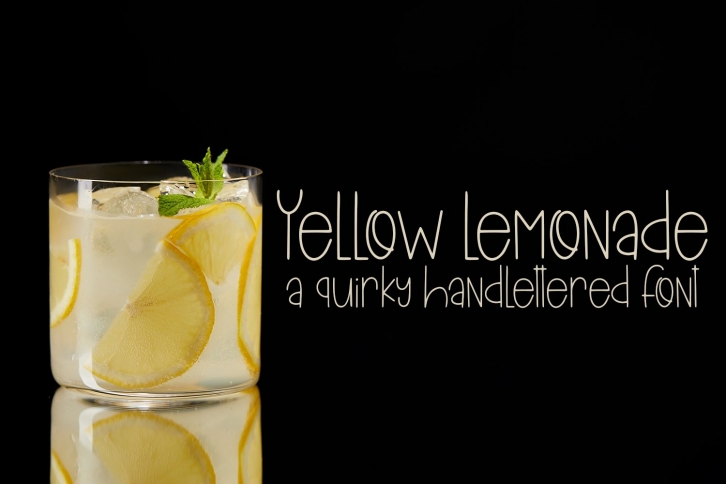
Yellow Lemonade - A Quirky Hand Lettered Font Download
Yellow Lemonade is a great font that was designed by Design Bundles Store. Imagine the amount of combinations you can create using this font! The archive is 11.74 MB and it was released on January 15, 2021. Yellow Lemonade looks beautiful on wedding invitations, greeting cards, logos, posters, labels, t-shirt designs, logos, business cards and is perfect for use in ink or watercolor works, fashion, magazines, packaging and food menus, children's books and more!